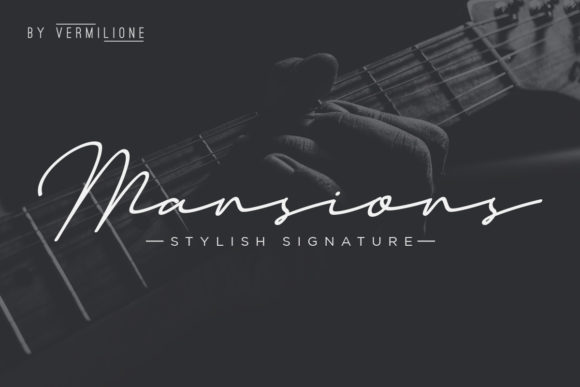
Introducing Mansions Font - The Handwritten Signature Script That Captivates
Embark on a journey of elegance and grace with Mansions Font, a handwritten signature script brimming with natural charm and stylish flow. Its organic strokes and authentic personality make it the perfect choice for personal branding, adding a touch of sophistication to your online presence.
Picture this: you're a signature photographer, capturing life's most precious moments. With Mansions Font as your watermark, your photographs transcend into timeless masterpieces, exuding professionalism and artistry. Your clients will marvel at the seamless blend of your signature and their cherished memories, forever etched in elegance.
But Mansions Font's allure extends far beyond photography. Its versatility knows no bounds, making it a versatile tool for personal branding, wedding invitations, and advertising. Unleash your creativity and let Mansions Font elevate your designs to new heights.
Step into a world of endless possibilities, where your signature becomes a symbol of distinction. With Mansions Font's diverse set of alternates, you can create countless variations, ensuring that your designs always stand out from the crowd.
Don't settle for ordinary scripts; embrace the exceptional with Mansions Font. Fill the void in your creative arsenal and separate yourself from the mundane. Mansions Font is more than just a font; it's an investment in your creative future, a gateway to a world of boundless inspiration.
Join the ranks of discerning designers and photographers who have discovered the magic of Mansions Font. Let your creativity flourish and your designs shine with an unparalleled elegance.